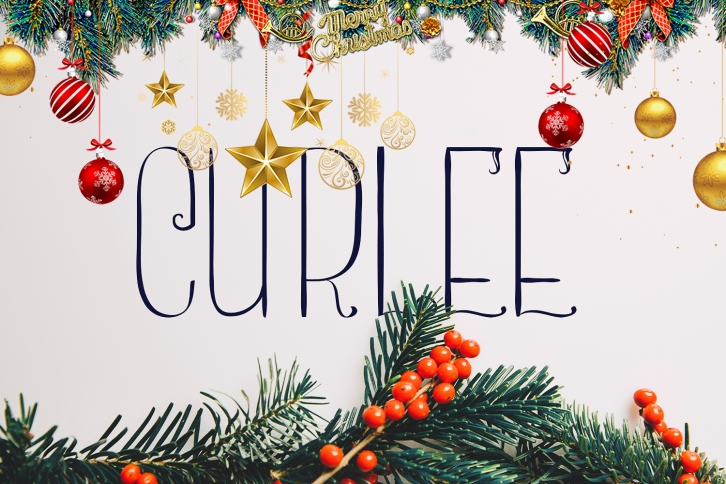
Curlee is a thin, lovely font that can be used on various occasions. It was first planned to be a simple, sans-serif font, but later on it evolved into a more natural, jungle-looking typeface.
The Curlee font comes with A-Z uppercase and lowercase letters, 0-9 numbers and limited punctuation.